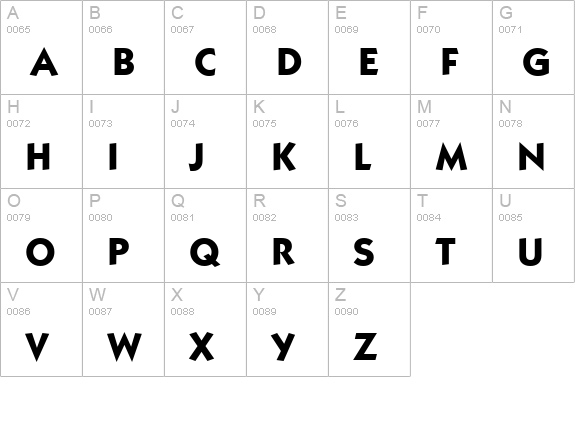
Koblenz-Bold-Regular is a strong, high-contrast variant in the Koblenz typeface family \xE2\x80\x94 well suited to headlines, attention-grabbing titles, and strong calls-to-action.
Koblenz-Bold-Regular is a versatile and striking font that exudes elegance and modernity. With its bold and strong appearance, this font is perfect for making a statement in any design project. Whether used for headings, titles, or logo designs, Koblenz-Bold-Regular commands attention and creates a lasting impression. The best part? Koblenz-Bold-Regular is completely free to download at FontsMarket.com. This means you can easily enhance your projects with this eye-catching font without any cost involved. Don't miss out on this fantastic opportunity to add Koblenz-Bold-Regular to your font collection and take your designs to the next level. Download now and let your creativity shine with this stunning typeface.